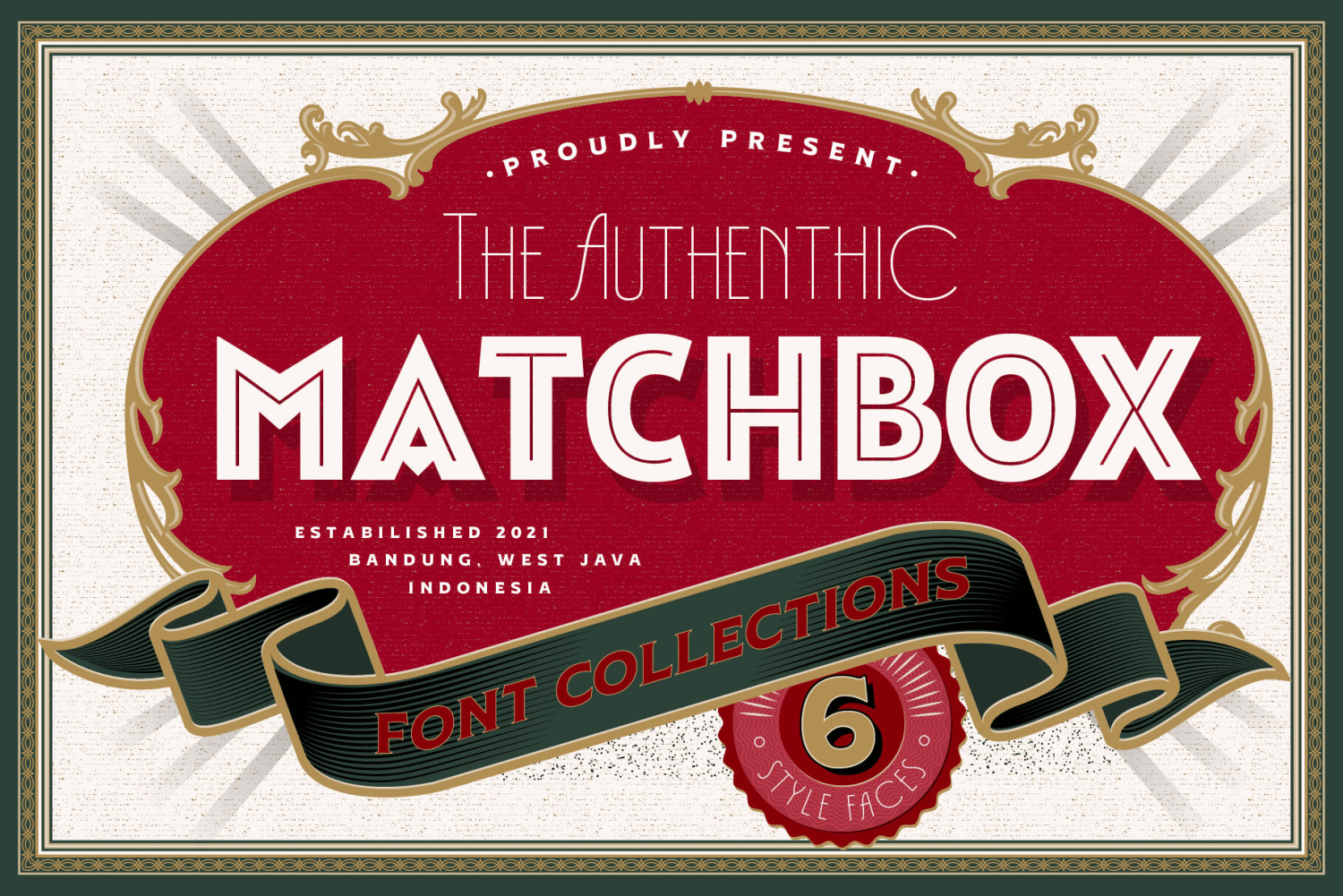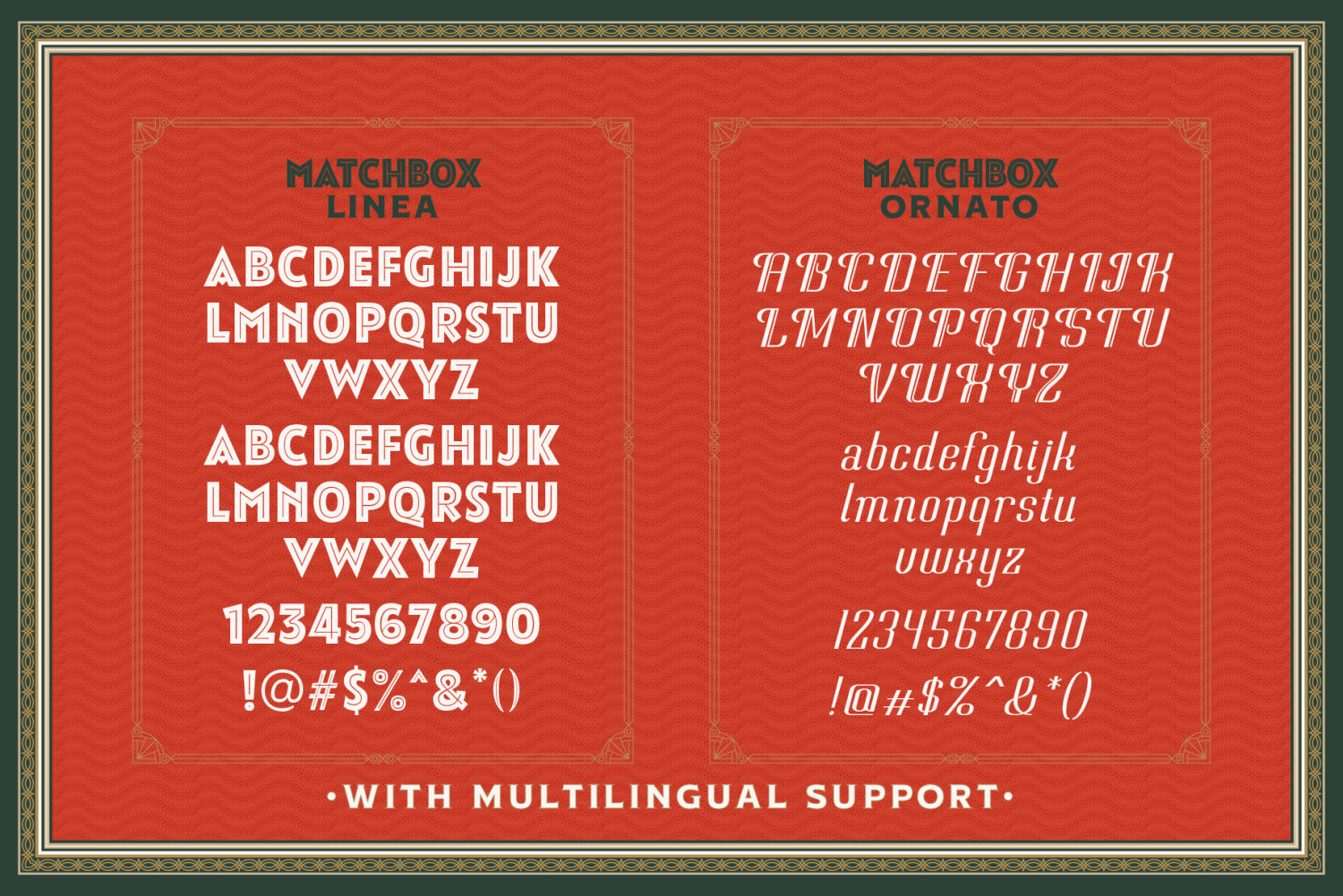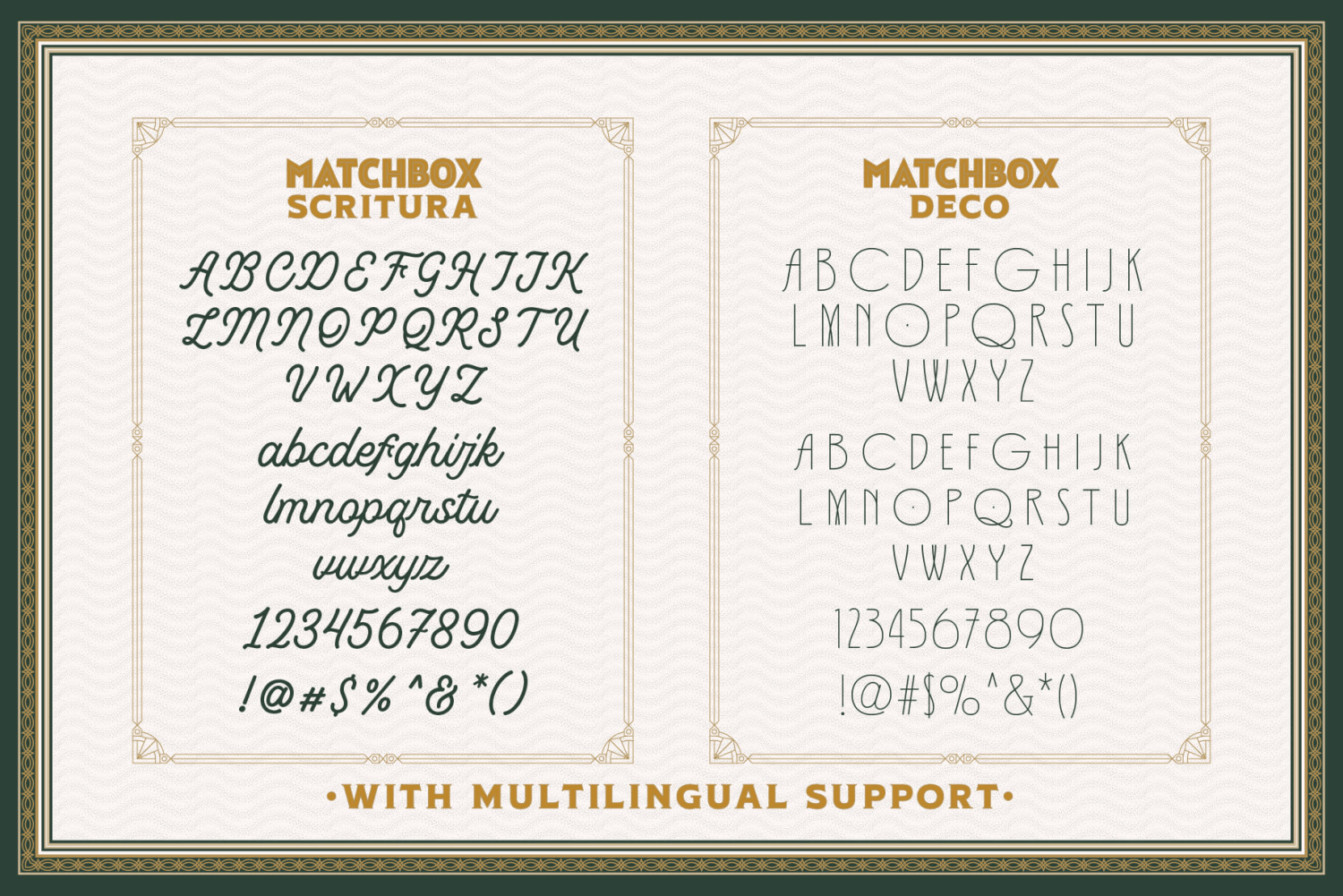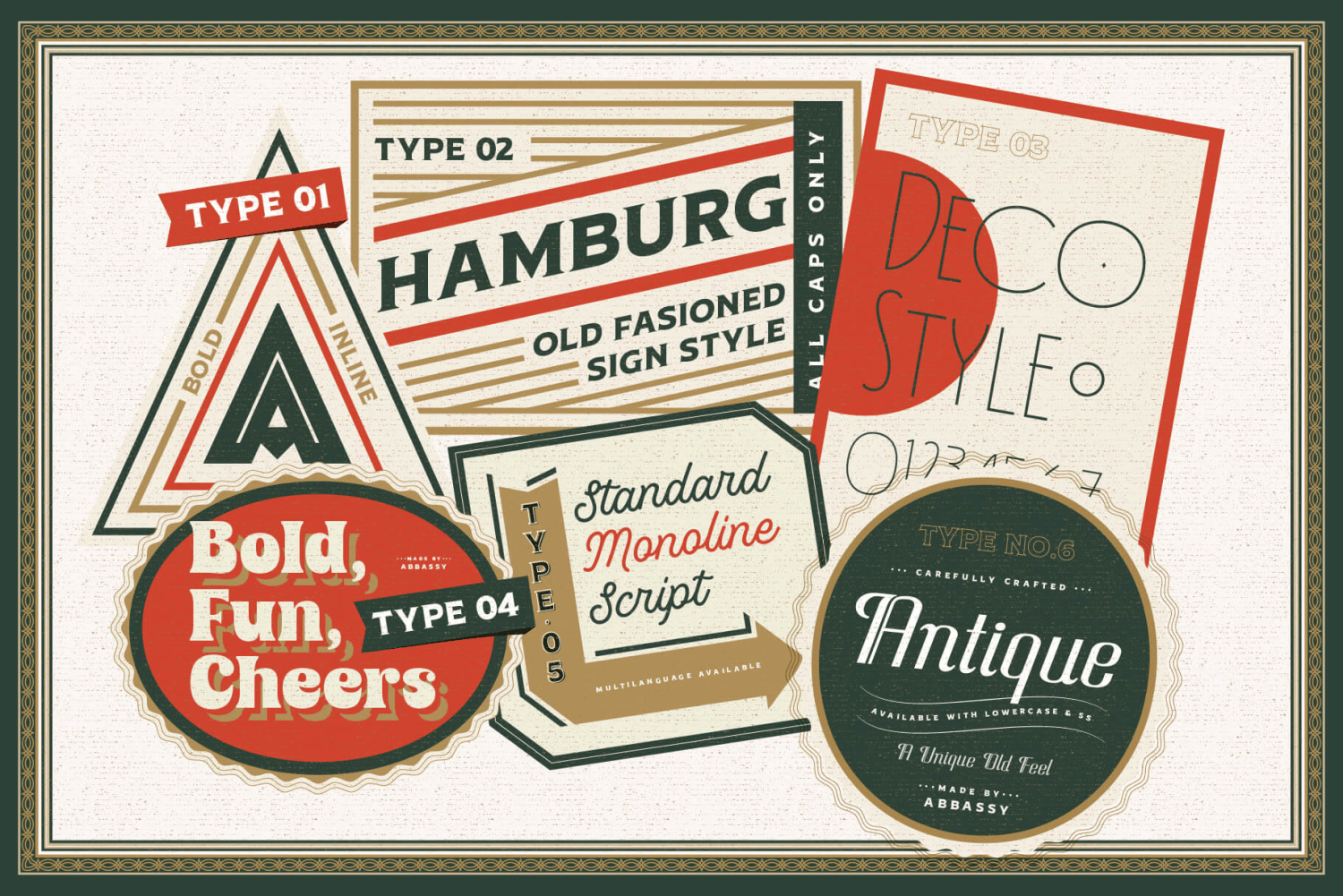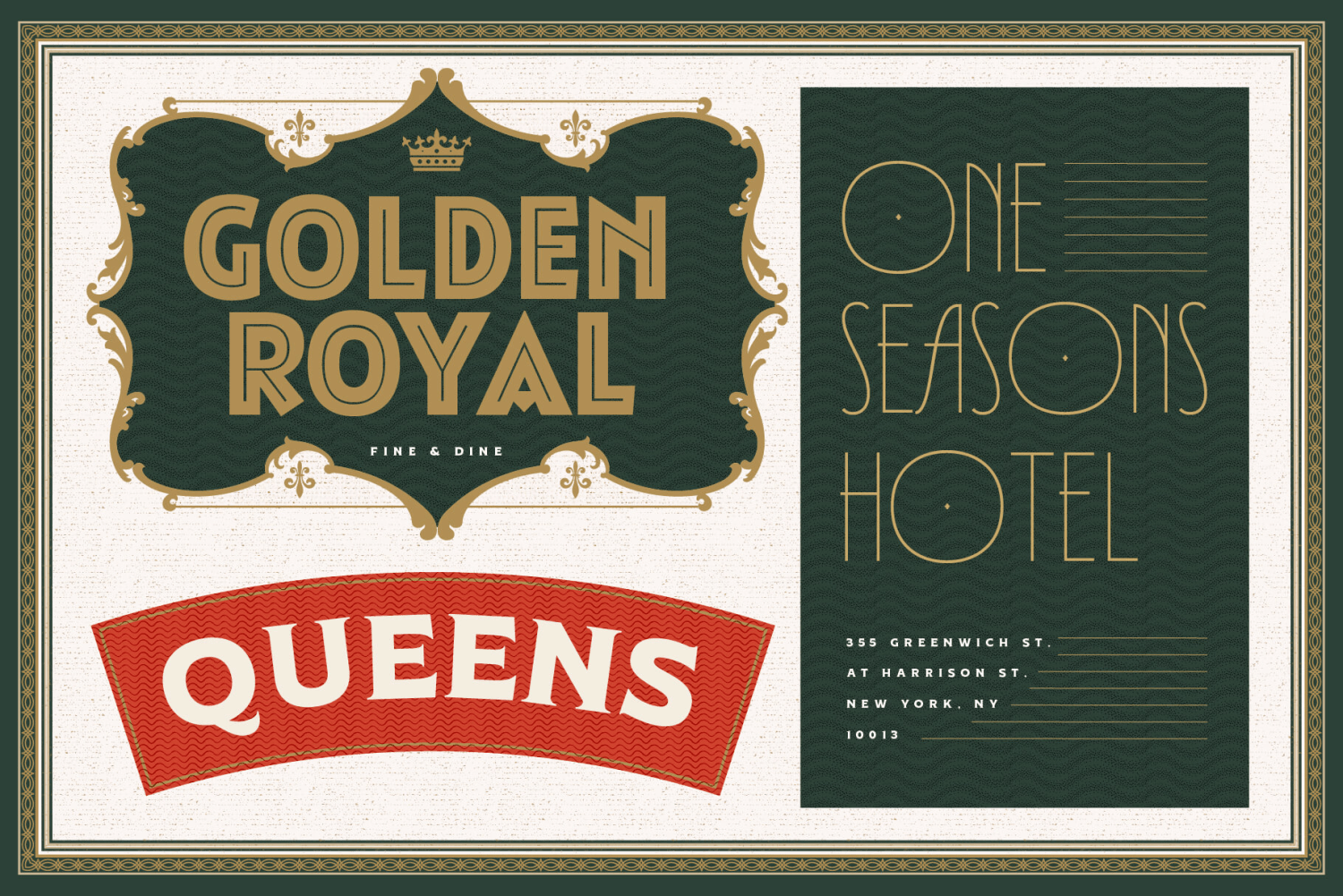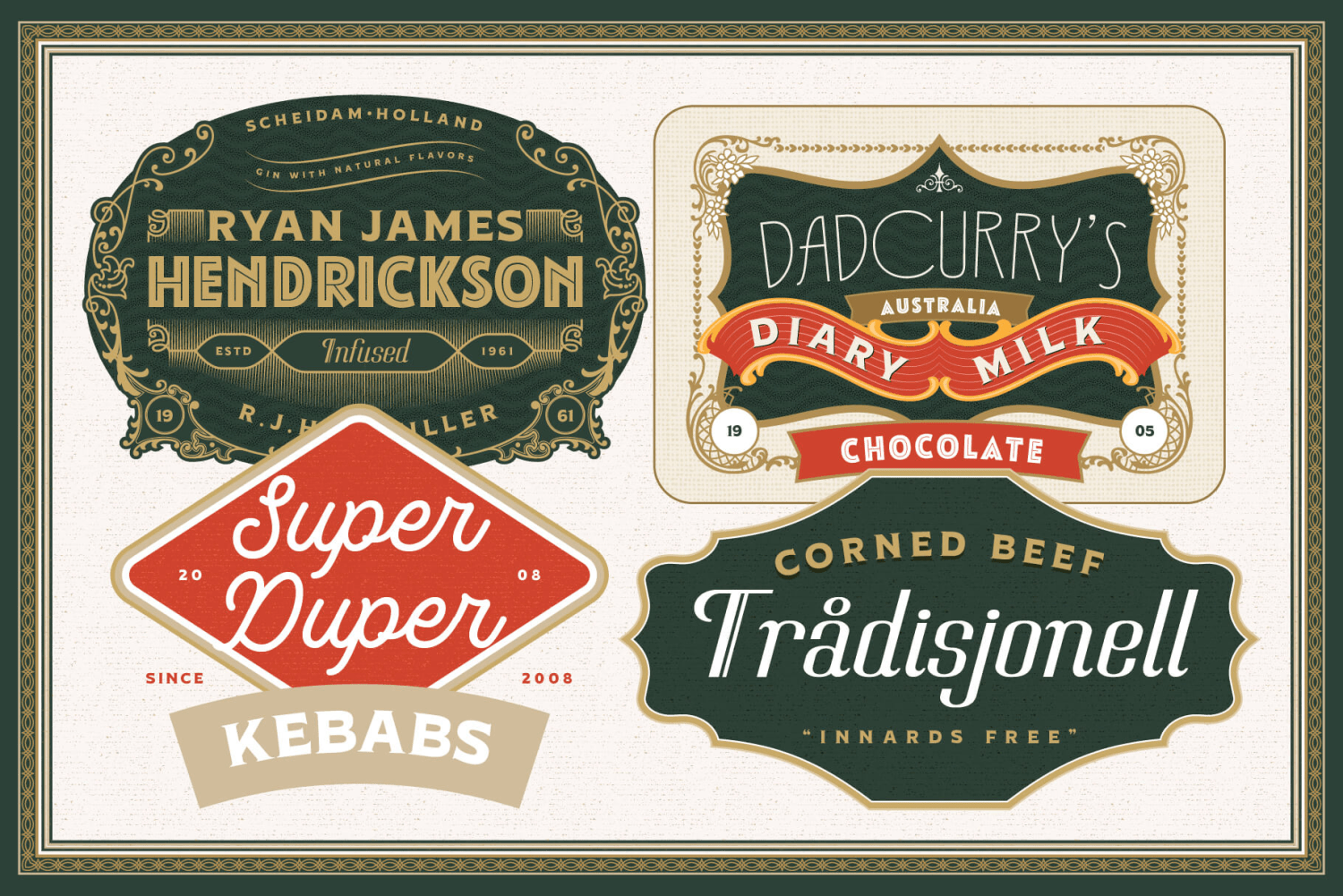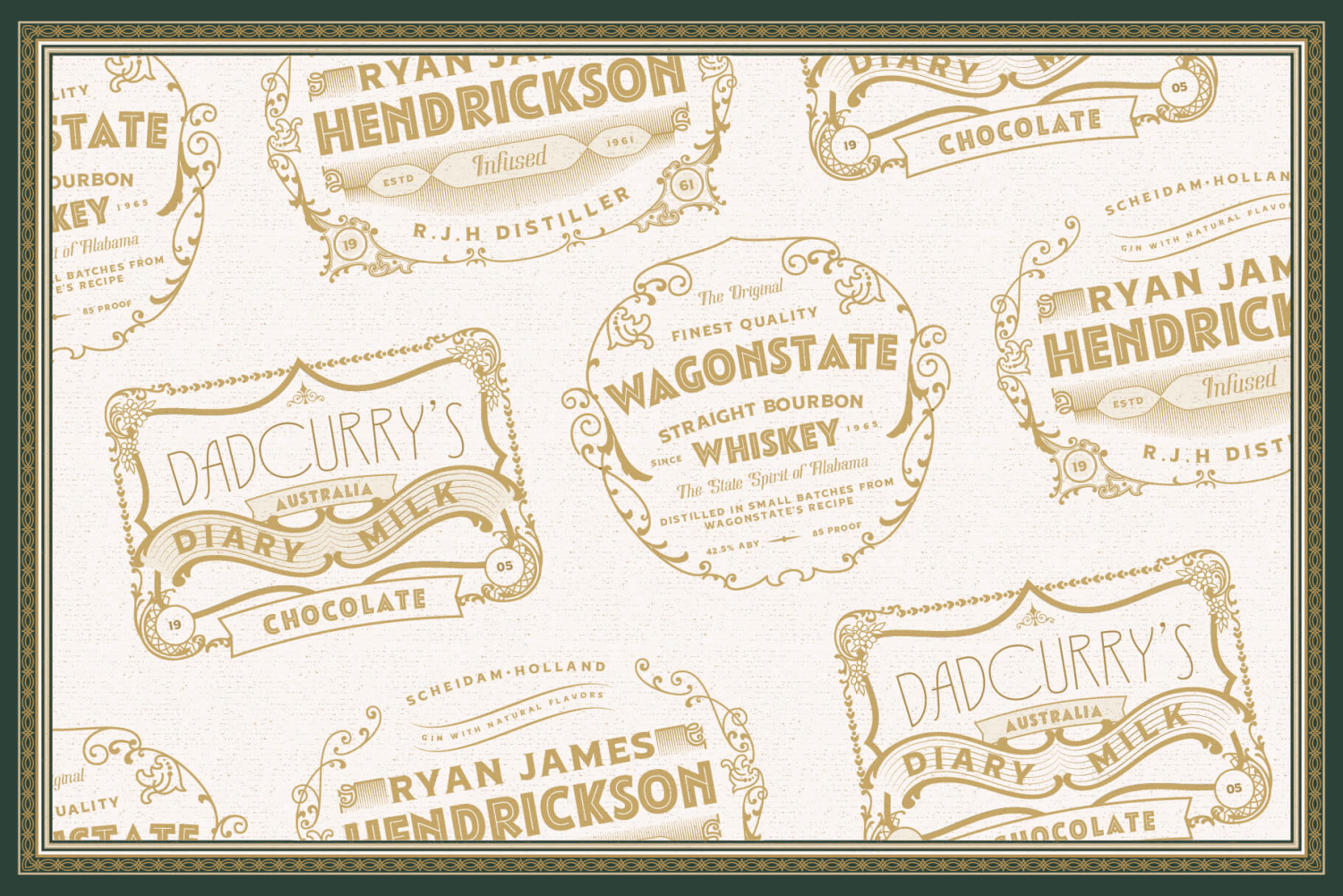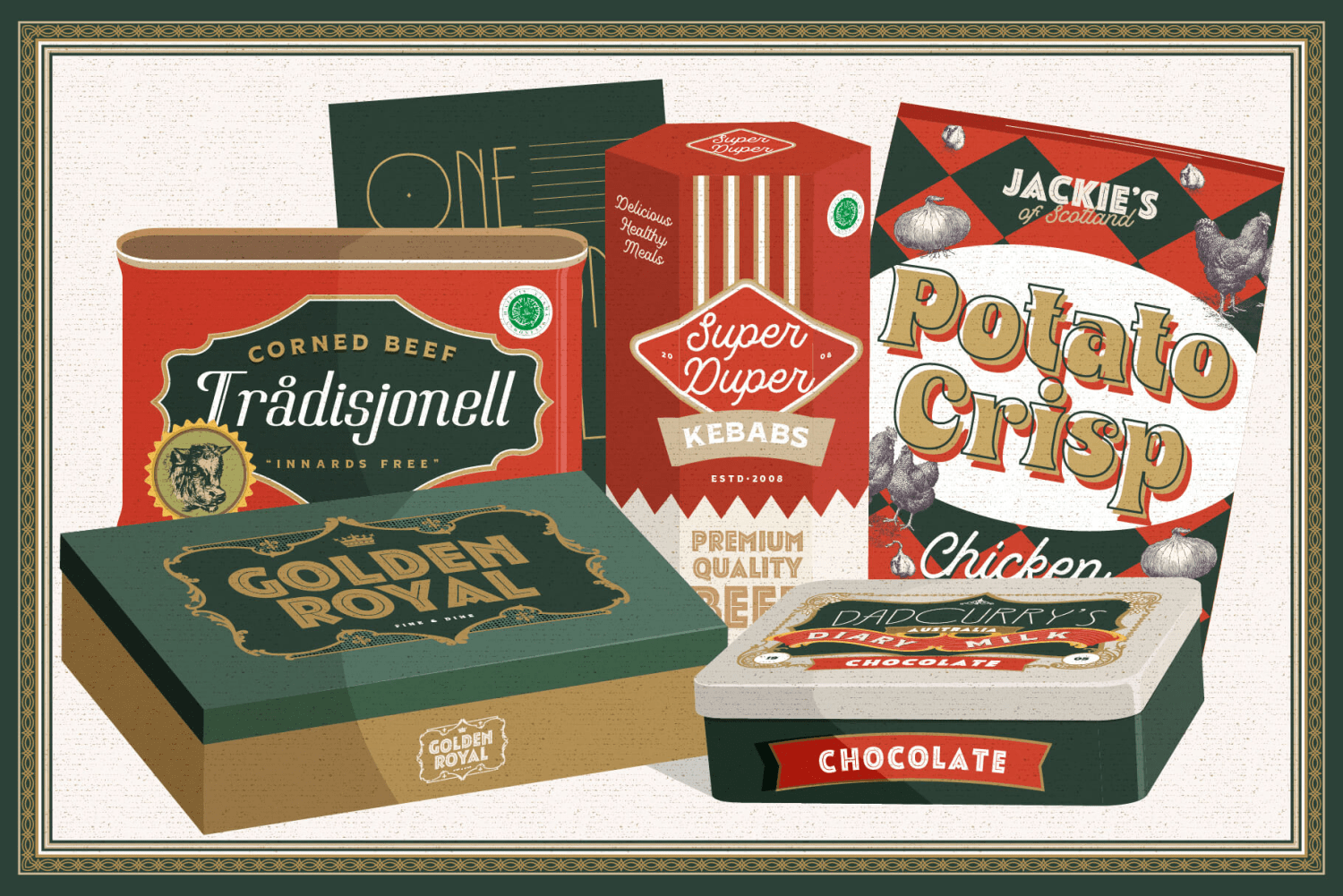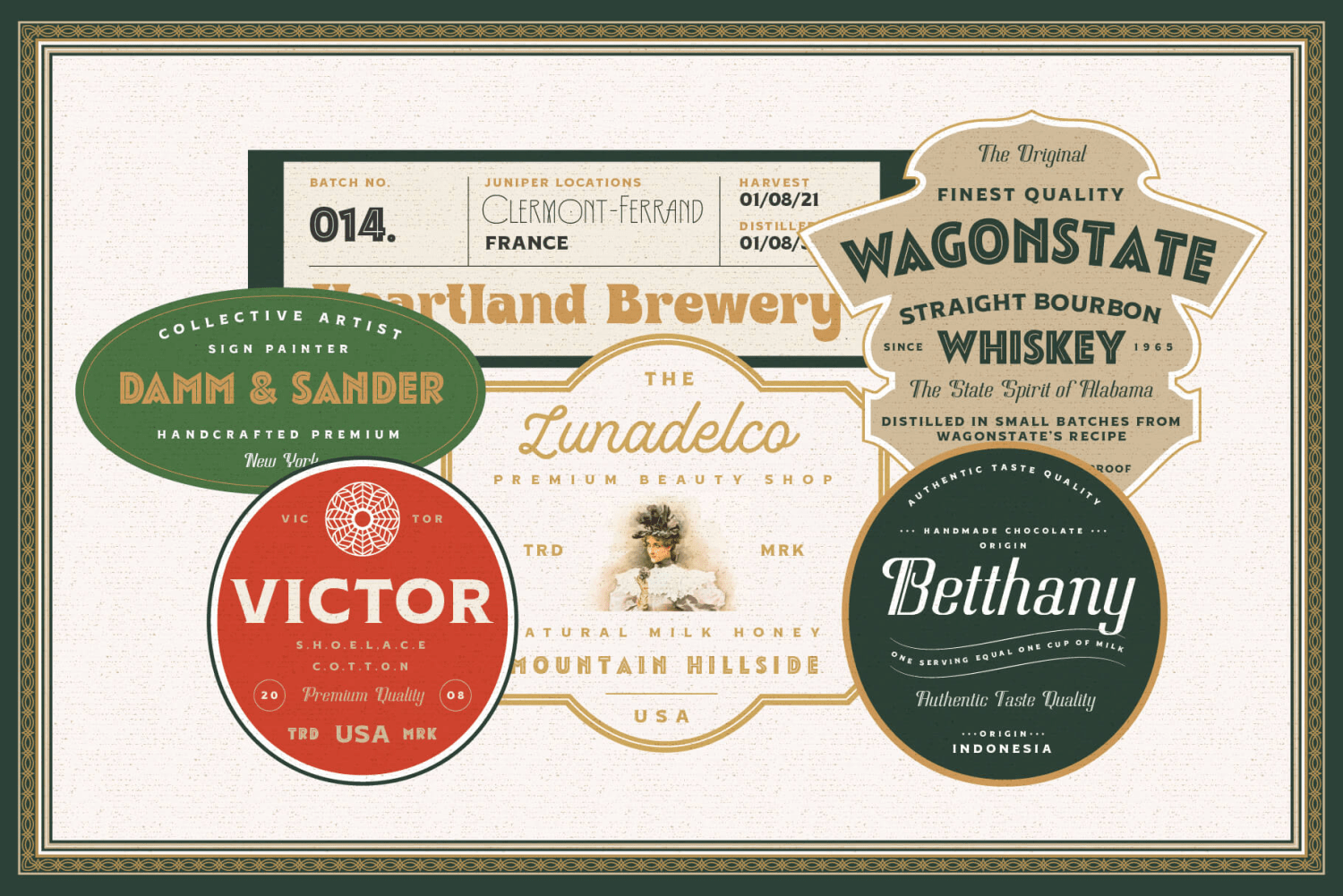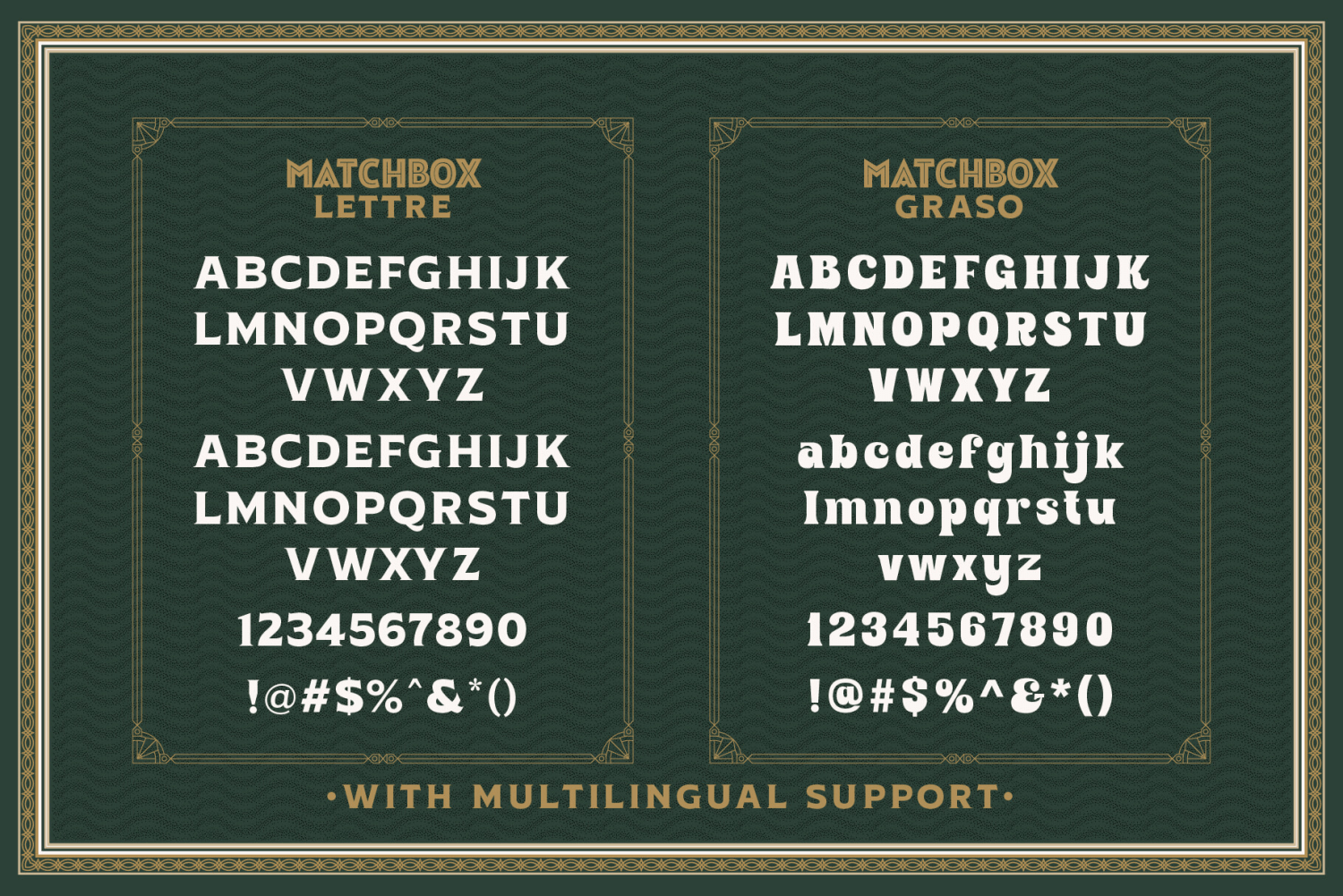
Matchbox Font Collection
Font Family by AF Studio
What's Inside:
- Matchbox Linea - Bold, Sharp, Standout with inline cut.
- Matchbox Lettre - Popular Vintage Sign Style.
- Matchbox Deco - As it names, Art Deco Style.
- Matchbox Scriptura - Casual Script Fonts, Good for Pair or on a small details.
- Matchbox Ornato - The Only fonts with a touch of vintage decorations.
- Matchbox Graso - Little touch of a Fat, Fun and Casual.
All the fonts are support Multilanguage Characters.